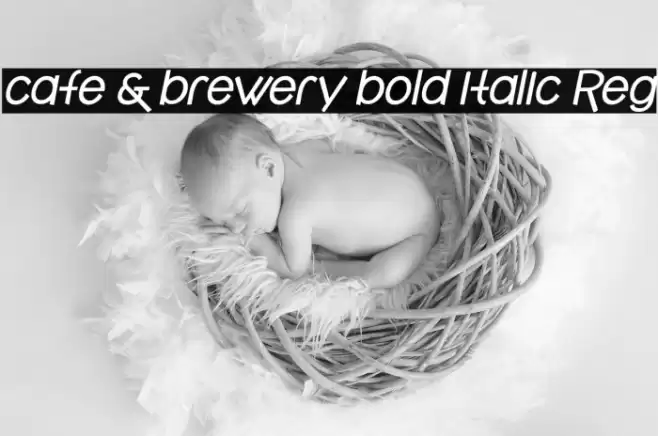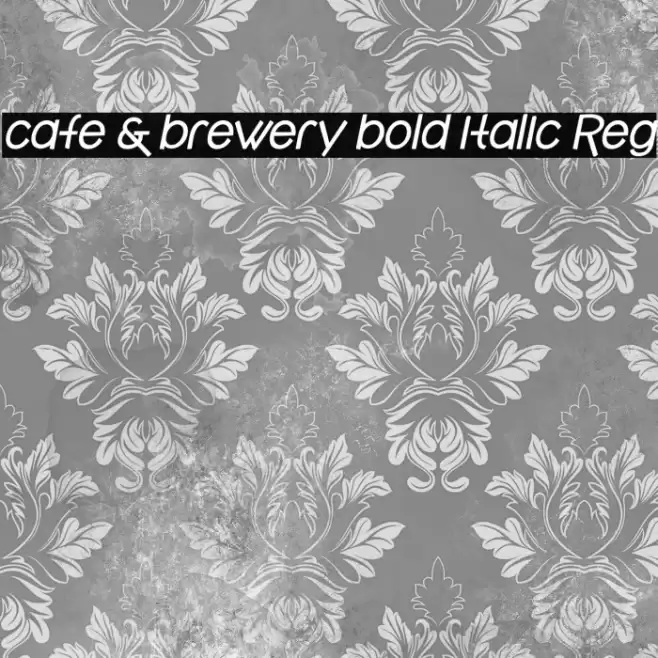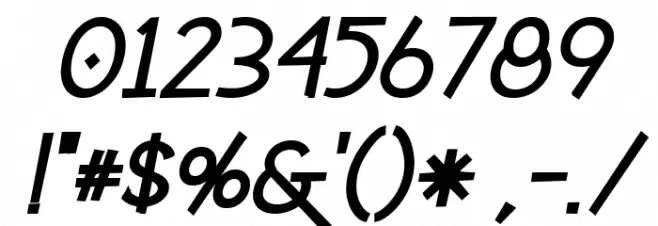
cafe & brewery bold italic Reg Font
This font features a bold and italic style with a modern and sleek appearance. The characters are slightly slanted, giving a sense of motion and dynamism. The strokes are consistent in thickness, providing a uniform look across all characters. The uppercase and lowercase letters maintain a harmonious balance, while the numerals are clear and easily distinguishable. Special characters are well-integrated, ensuring versatility in various design contexts. The overall design is clean and contemporary, making it suitable for a wide range of applications.
A bold, italic, and modern font with a sleek and dynamic appearance from Regular fonts.
- Proposed Projects: Ideal for branding, advertising, and editorial design projects where a modern and dynamic look is desired.
- Use Case: Headlines, Logos, Branding